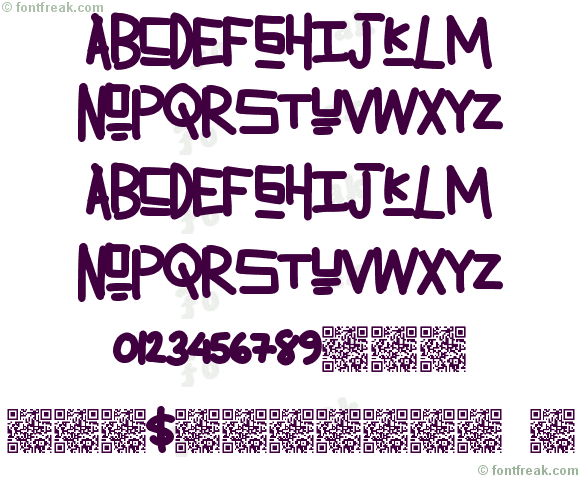
LemonadeSummer
About LemonadeSummer
LemonadeSummer by Xerographer Fonts is a playful display font that captures the essence of summer with its whimsical design. This font features a unique handwritten style, characterized by its casual, carefree strokes that evoke a sense of fun and creativity. The strokes vary in weight, giving the letters a lively character that is both inviting and engaging. The spacing between the characters is generous, allowing for easy readability while maintaining a youthful, energetic vibe. Decorative elements such as the uneven baseline and exaggerated curves add to the font's charm, making it perfect for capturing attention.
The LemonadeSummer font is ideal for a variety of applications that require a touch of personality. It shines in contexts such as wedding invitations, where its playful nature adds a fun twist to traditional designs. Additionally, it is well-suited for summer event flyers, beach-themed party invitations, and restaurant menus, particularly for establishments that want to convey a light-hearted atmosphere. Graphic designers will find this font particularly appealing for creating vibrant branding projects and social media graphics that stand out in a crowded digital landscape.
What sets the LemonadeSummer font apart is its ability to evoke joy and nostalgia, transporting viewers to sunny days filled with laughter and good memories. By choosing the LemonadeSummer font free download, you can elevate your design projects with a font that truly embodies the spirit of summer.